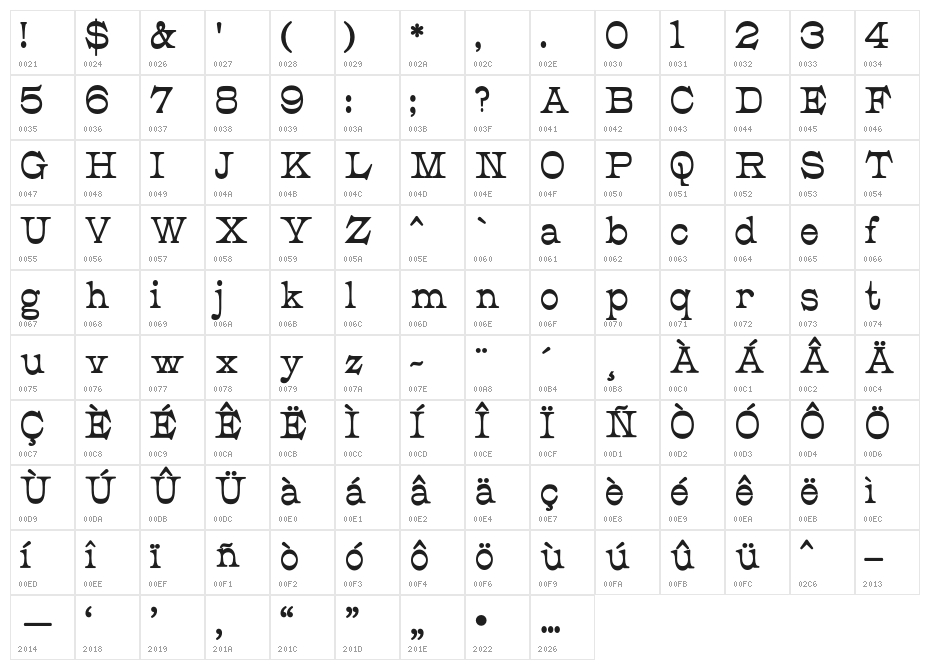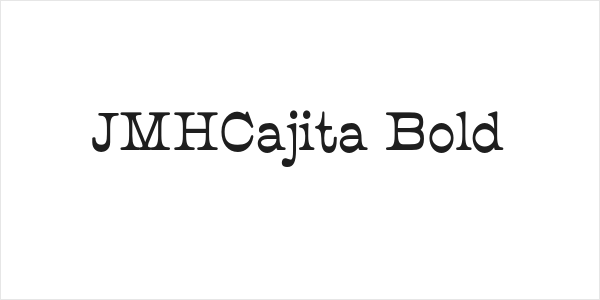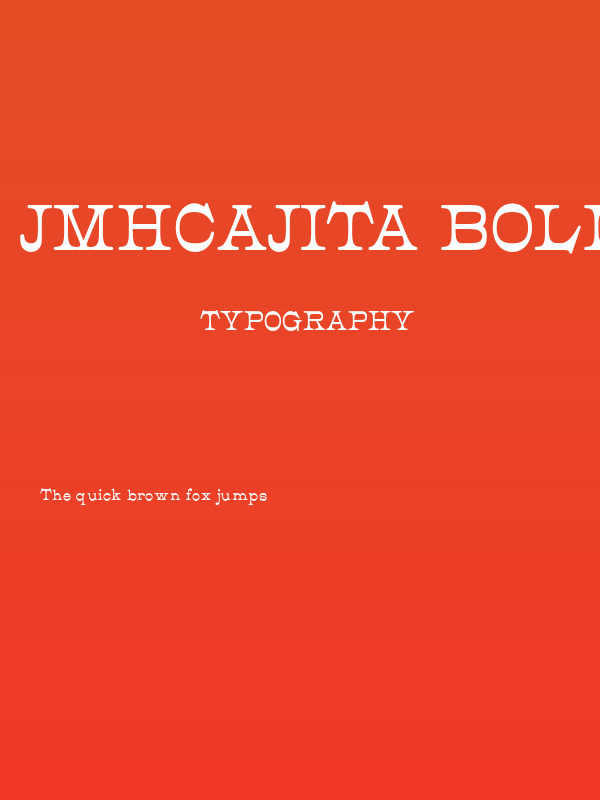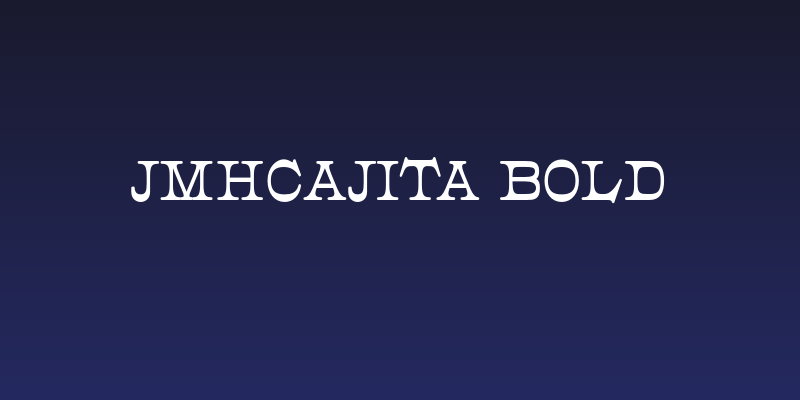
JMHCajita-Bold Font
JMHCajita-Bold Description
This font features a bold and robust design with distinct serifs that give it a classic yet playful appearance. The uppercase letters are strong and commanding, while the lowercase letters maintain a consistent style with slightly rounded edges. The numbers are clear and bold, making them easily readable. Special characters are designed to complement the overall aesthetic, adding a touch of elegance and whimsy. The font's bold weight and high contrast in stroke thickness make it stand out, suitable for various design applications.
| Proposed Projects | Ideal for headlines, posters, branding, and any project requiring a bold and distinctive serif typeface. |